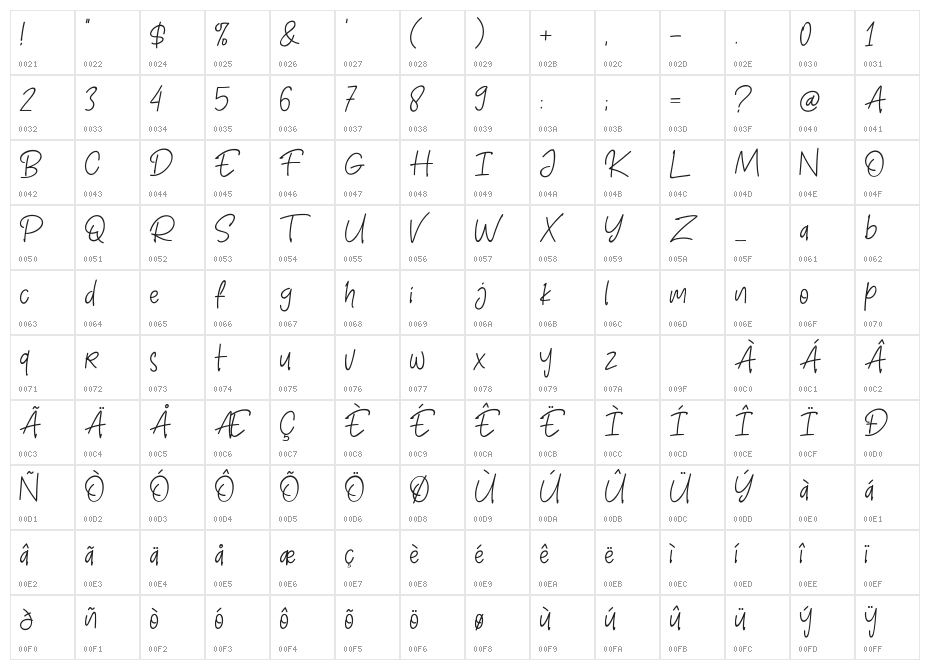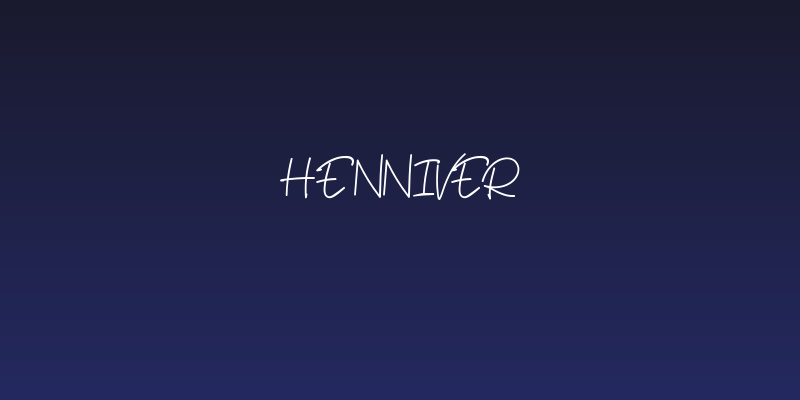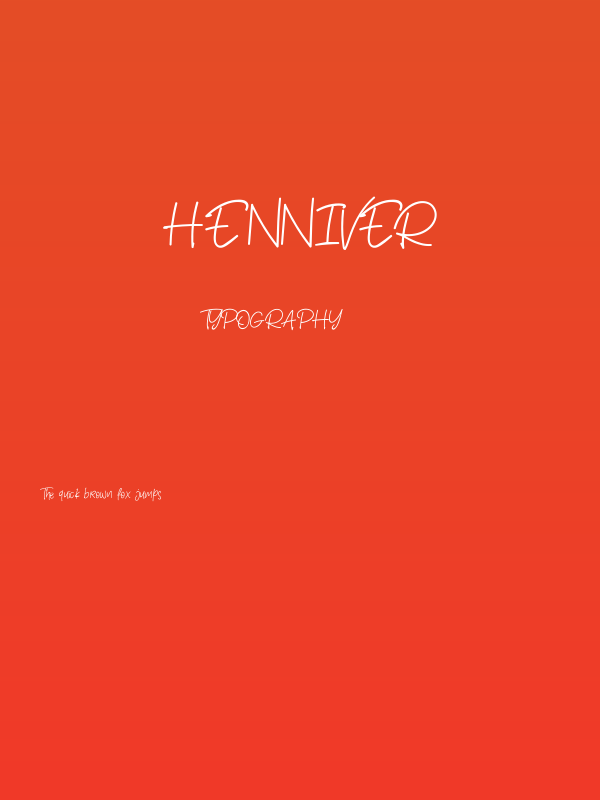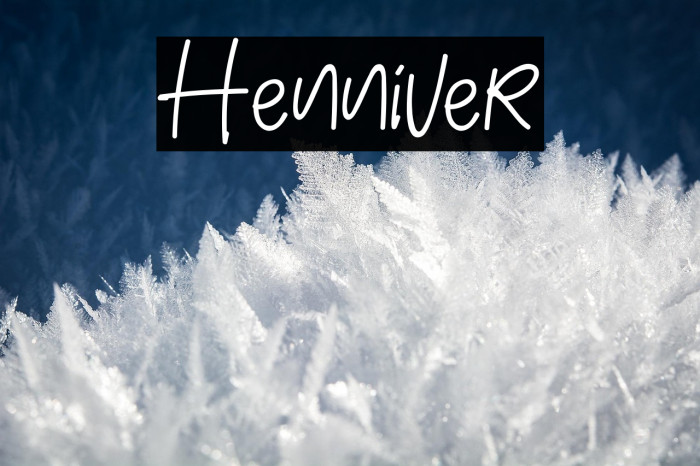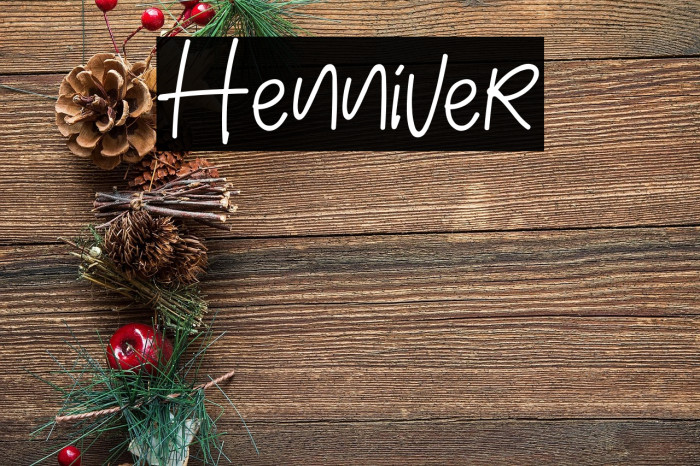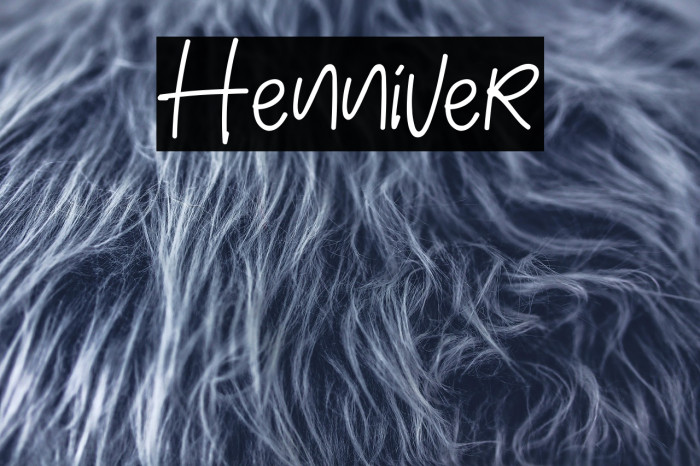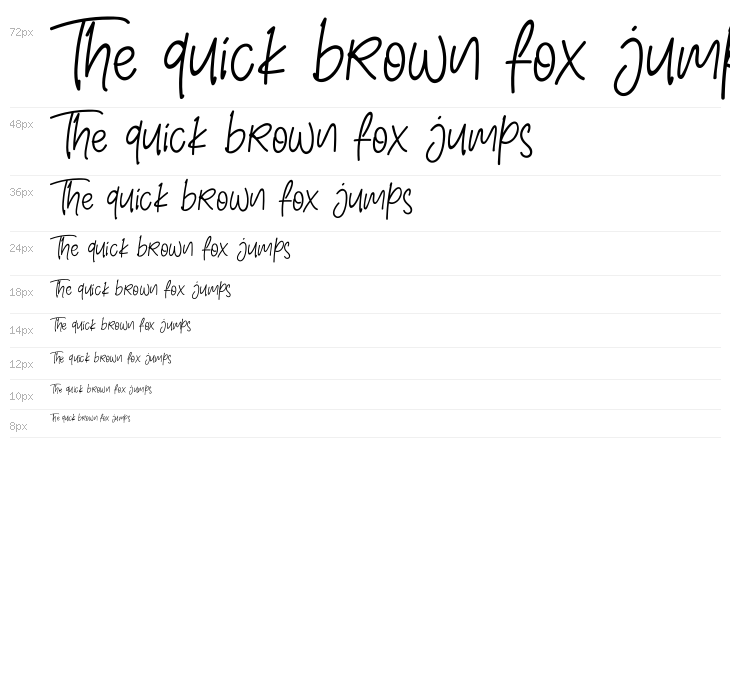
Henniver Font
Henniver Description
This font features a playful and casual handwritten style, characterized by its fluid and slightly irregular strokes. The letters have a natural, flowing appearance, with a mix of rounded and angular forms that give it a dynamic and lively feel. The uppercase letters are tall and slightly narrow, while the lowercase letters maintain a consistent height, adding to the font's readability. The numerals and special characters are designed to match the overall style, ensuring a cohesive look across all text. This font's informal and friendly vibe makes it suitable for projects that require a personal touch.
| Proposed Projects | Ideal for greeting cards, invitations, personal branding, and social media graphics. |